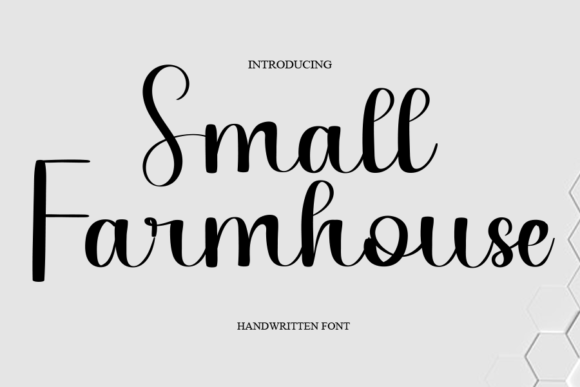
Prepare to be captivated by Small Farmhouse Font, an enchanting handwritten masterpiece that will transform your designs into instant showstoppers! This exquisite font family is meticulously crafted to evoke a sense of timeless elegance while embracing a modern, captivating flair. With its delicate strokes, flowing curves, and undeniable charm, Small Farmhouse Font will weave a spell of enchantment over your creative endeavors, leaving an impression that lingers long after the ink dries.
Immerse yourself in the world of Small Farmhouse Font, where every letter dances upon the page with grace and precision. Its versatility knows no bounds, effortlessly complementing a myriad of projects, from personalized invitations and heartfelt love letters to captivating social media posts and eye-catching branding materials. Let the allure of Small Farmhouse Font cast a spell over your designs, igniting a symphony of creativity that will leave you breathless.
Indulge in the beauty of Small Farmhouse Font and witness the transformation of your designs before your very eyes. Its enchanting presence will elevate your work to new heights, capturing hearts and captivating minds in its wake. With each stroke, you'll unveil a symphony of elegance and charm, leaving an unforgettable mark that will resonate with your audience. Embrace the power of Small Farmhouse Font and let your creativity take flight, soaring to unprecedented levels of brilliance.
Small Farmhouse Font, a creation of the talented janurmasahmad, is a testament to the power of skilled craftsmanship. Its intricate details, effortless flow, and captivating presence are a reflection of the artist's unwavering dedication to excellence. As you explore the depths of this magnificent font, you'll discover a treasure trove of possibilities, where imagination knows no bounds. Unleash the magic of Small Farmhouse Font, and prepare to witness the remarkable metamorphosis of your designs!